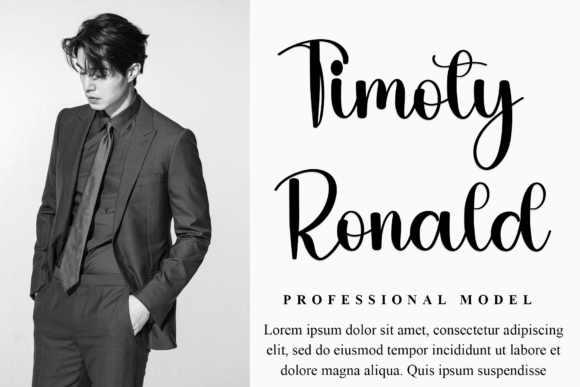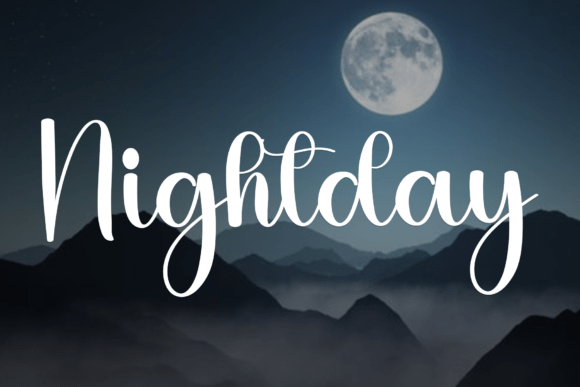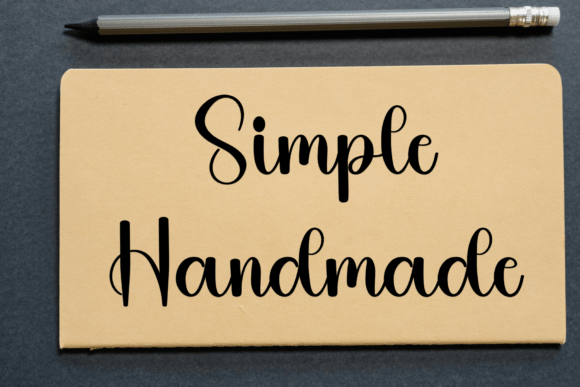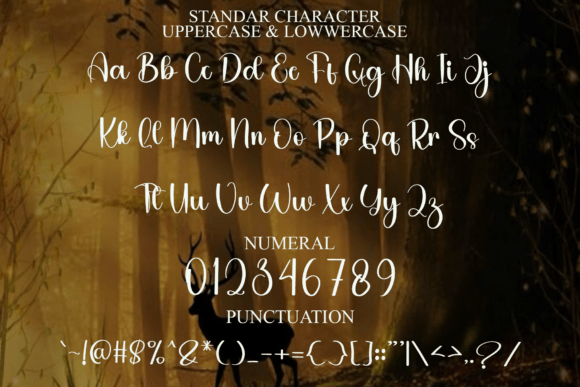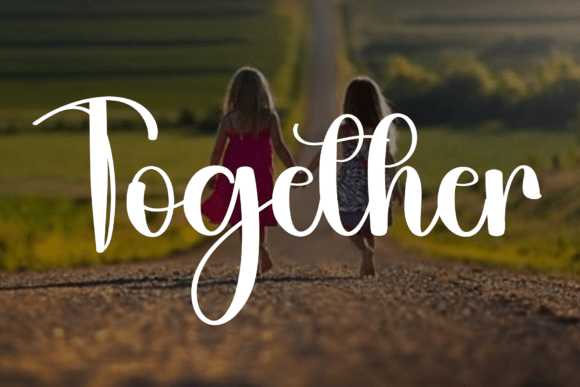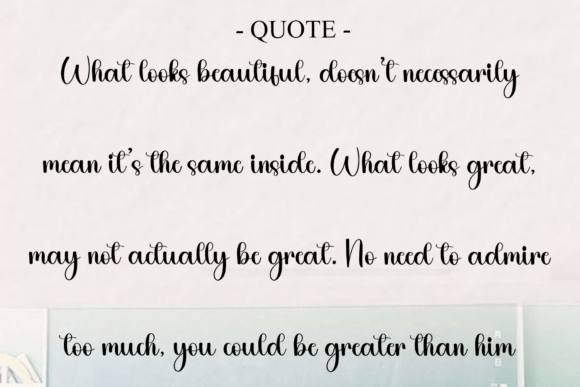
Bring Your Designs to Life with the Dreaming Wedding Font
Have you ever sat down with a blank page, a blank canvas, or a blank screen, and felt a spark of creativity ignite within you? The rush of ideas, the thrill of bringing something new to life – it’s a feeling like no other. For designers, this moment is a regular occurrence, but what happens when you need a tool to help you express that creativity in a truly unique way?
That’s where the Dreaming Wedding Font comes in – a lovely and timeless handwritten font that’s perfect for creating eye-catching logos, branding, and quotes. With its unique and beautiful touch, this font will make your design come alive in a way that feels truly special. Whether you’re working on a wedding design, a blog post, or a social media campaign, the Dreaming Wedding Font is an invaluable asset for any designer looking to add a personal touch to their work.
Dreaming Wedding Font Key Features
- Font Family: Dreaming Wedding, a beautiful and elegant script font.
- Character Set: Includes uppercase and lowercase letters, numbers, and punctuation marks, making it suitable for various text-based designs.
- Unique Characteristics: The font features a whimsical and romantic feel, with flowing connections between letters and subtle flourishes, perfect for wedding invitations, wedding stationery, and other special occasions.
Dreaming Wedding Font Review
I recently had the chance to work with the “Dreaming Wedding Font” and I must say it’s a lovely addition to any wedding design. ✨ Here are some things that work well:
- Whimsical and elegant feel that’s perfect for a romantic wedding theme.
- Good range of font styles, from cursive to serif, to suit different design needs.
However, there are a few limitations to keep in mind: ⚠️
- Some of the font styles can feel a bit too ornate, which may not be suitable for all designs.
Overall, I think the “Dreaming Wedding Font” is a beautiful and versatile choice for wedding designers. While it may have some limitations, its unique charm and customization options make it a great addition to any design collection.
Tips for Getting the Most Out of the “Dreaming Wedding Font”
For optimal results, use the “Dreaming Wedding Font” in conjunction with a soft, pastel color scheme and elegant graphics.
Experiment with different font sizes and styles to create visual interest and hierarchy in your design.
The “Dreaming Wedding Font” is ideal for:
- Wedding websites and blogs
- Wedding planning and design projects
Alternatives to Dreaming Wedding Font
Whimsy Script
Whimsy Script is a elegant and romantic script font perfect for wedding invitations, announcements, and other wedding-related materials. It has a similar whimsical feel to Dreaming Wedding Font but with a more modern twist.
Compared to Dreaming Wedding Font, Whimsy Script has a more delicate and refined appearance, making it suitable for more sophisticated weddings.
Love Story Script
Love Story Script is a beautiful and flowing script font ideal for wedding stationery, menus, and other wedding decor elements. It has a similar romantic feel to Dreaming Wedding Font but with a more vintage charm.